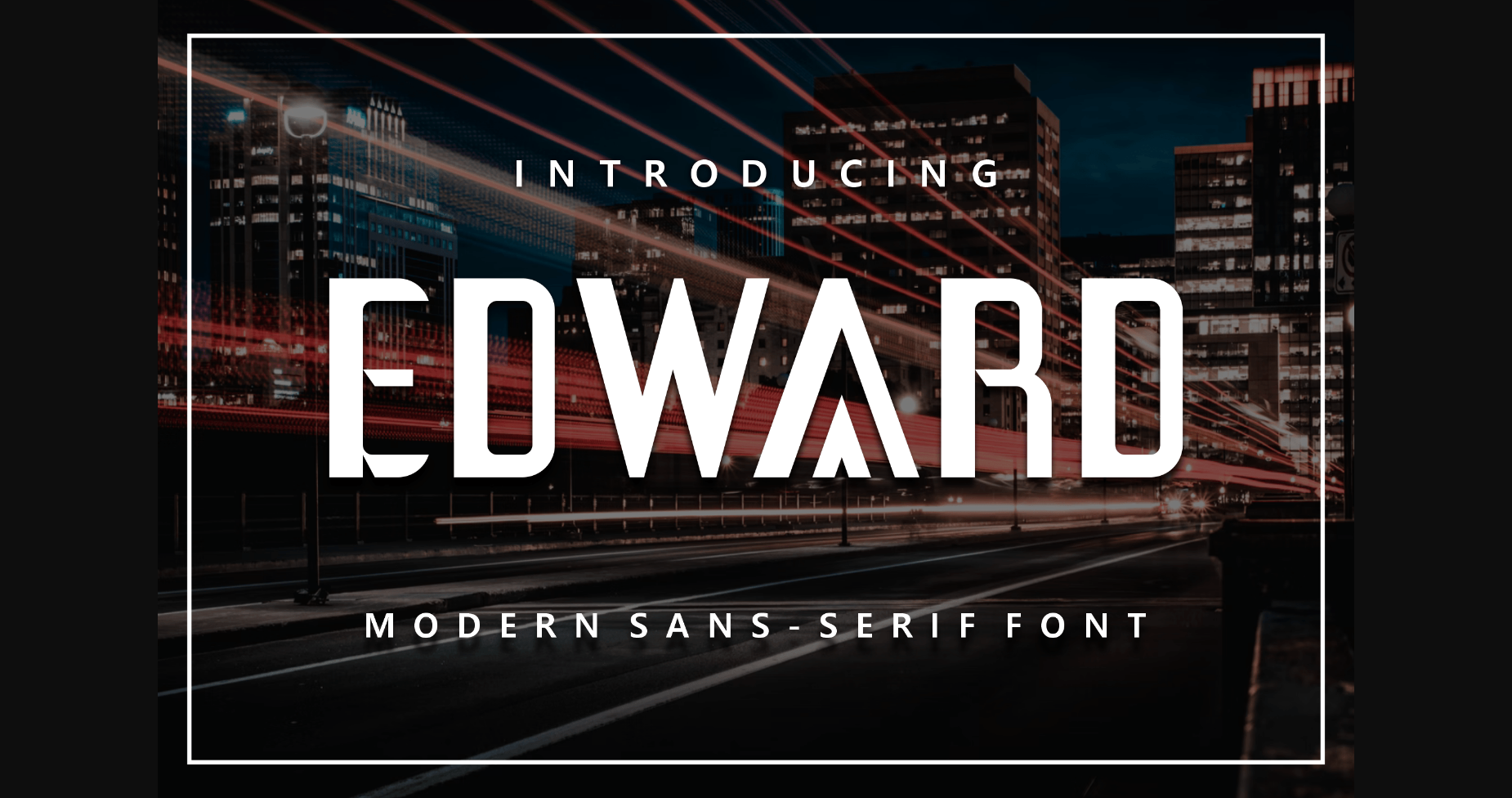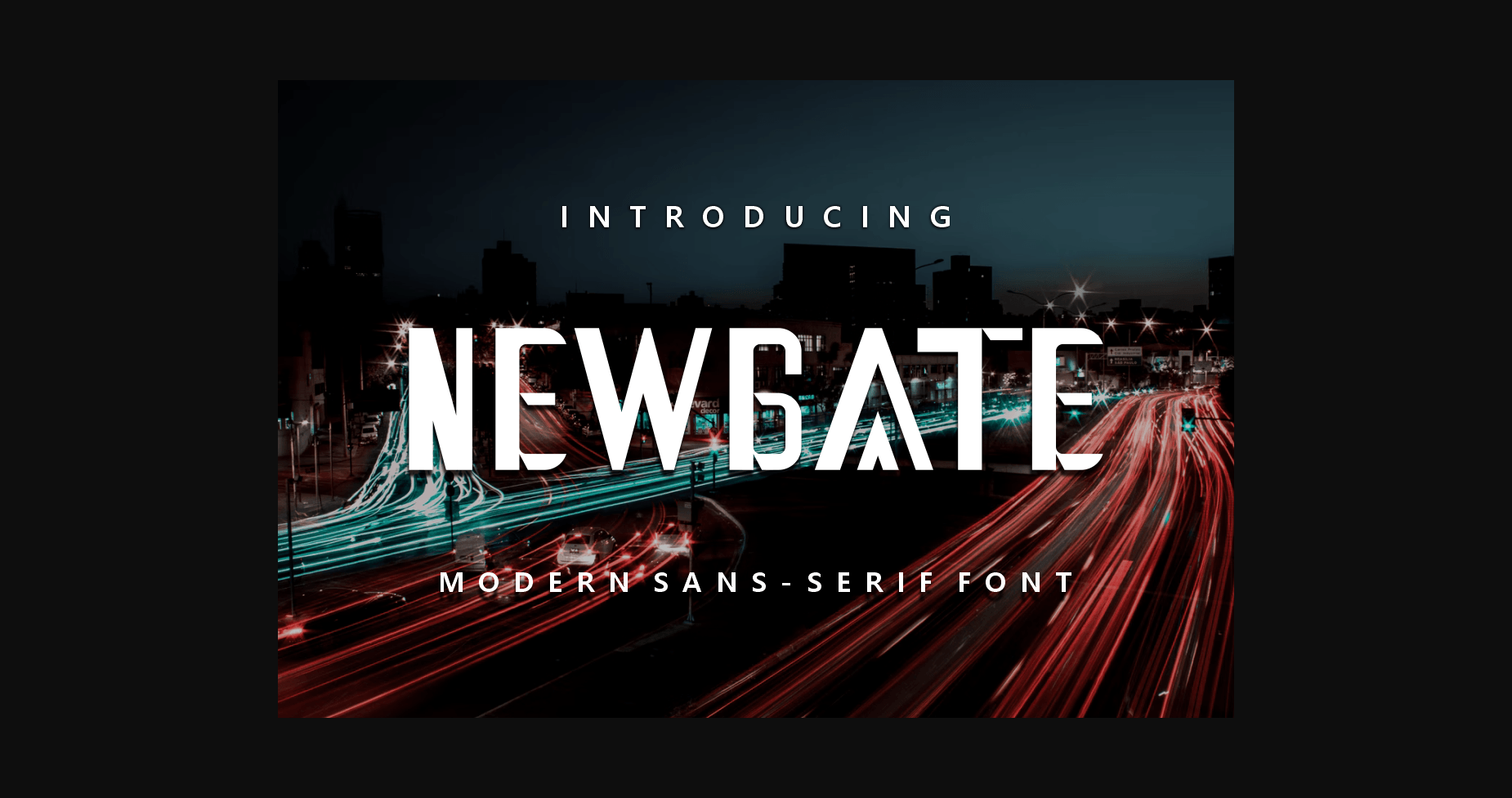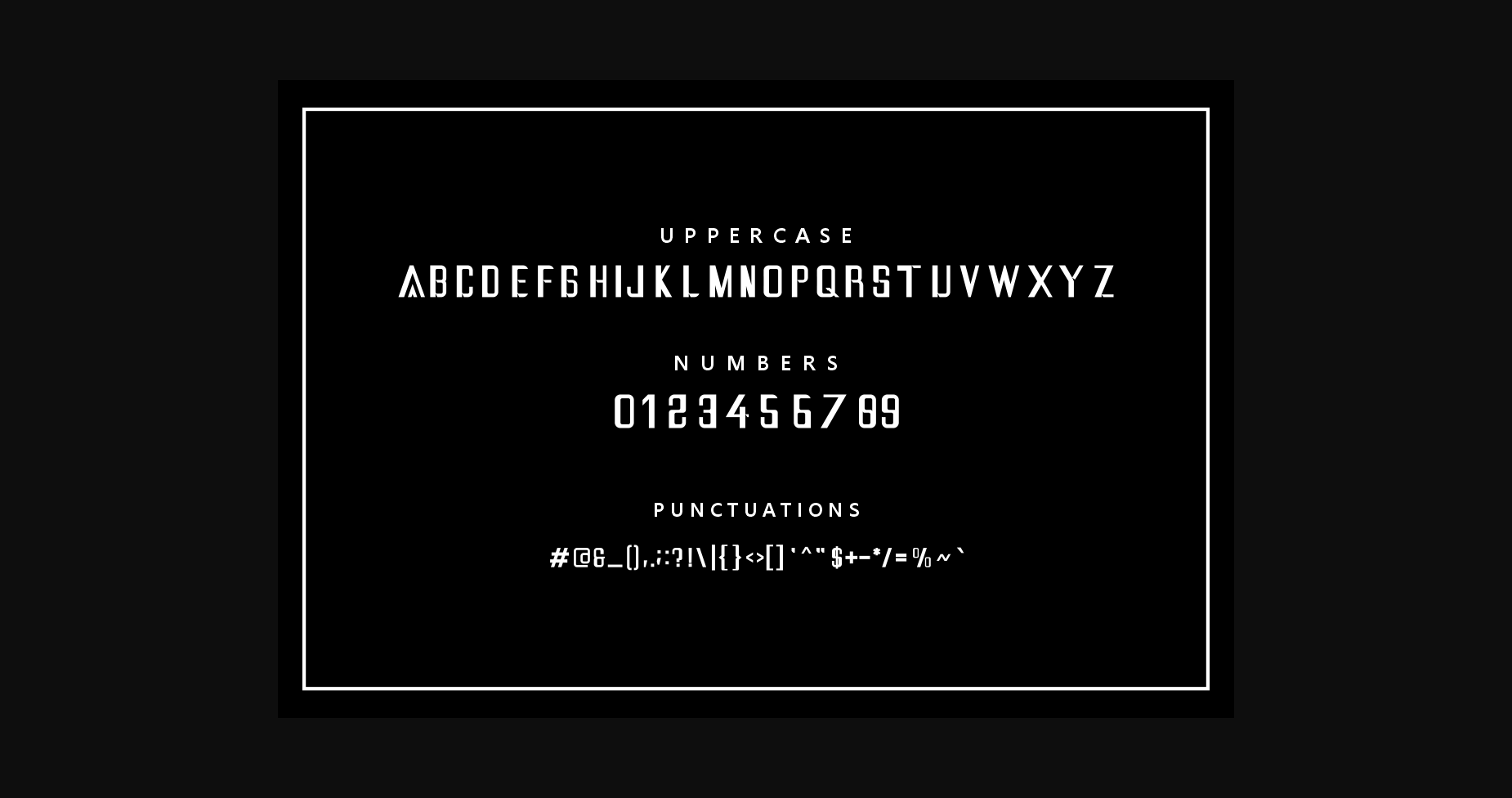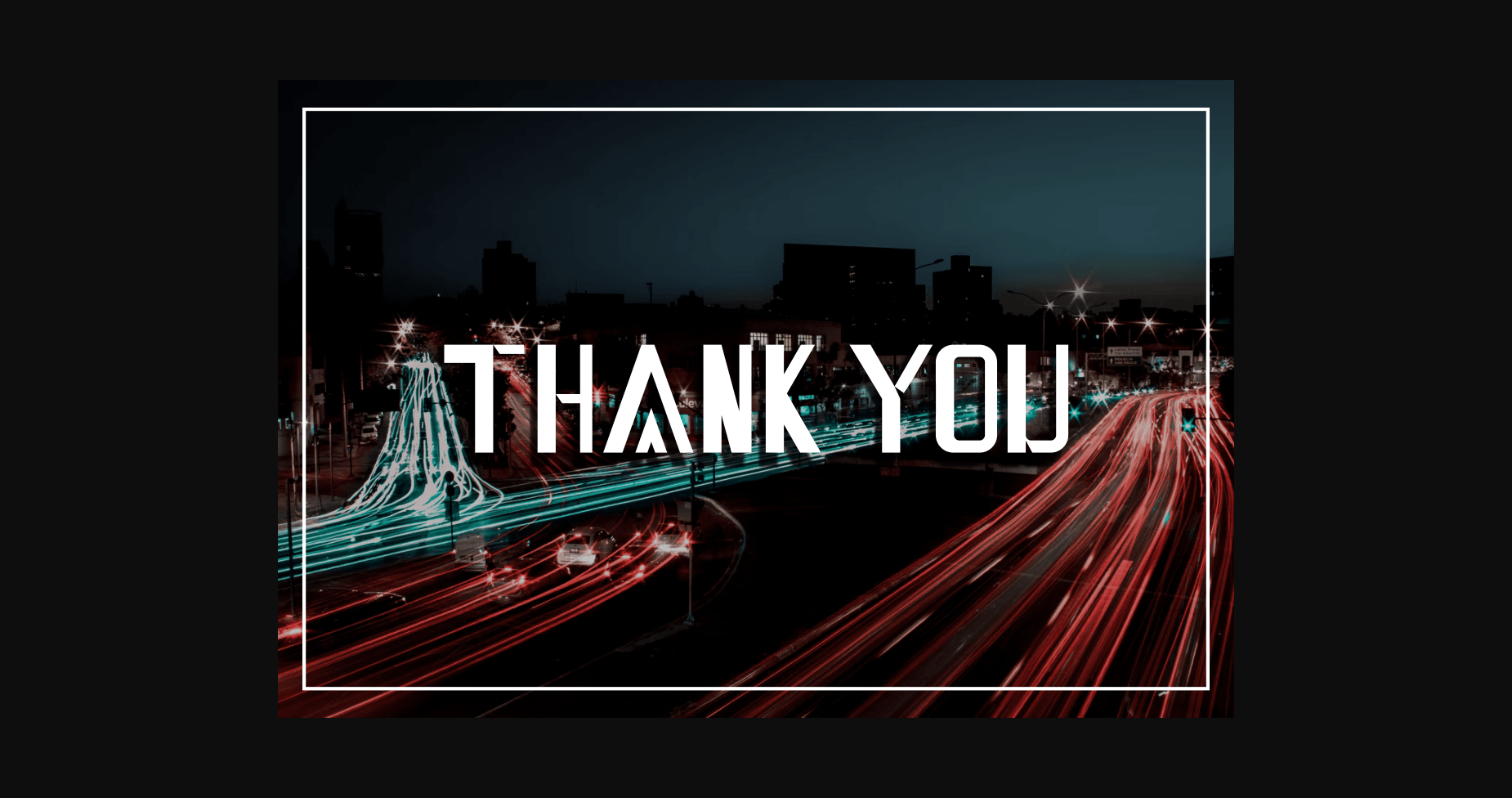
About Edward Font
Edward is a modern and original sans serif font perfect for templates and presentations, books, gifts, packaging, name tags, and so much more.